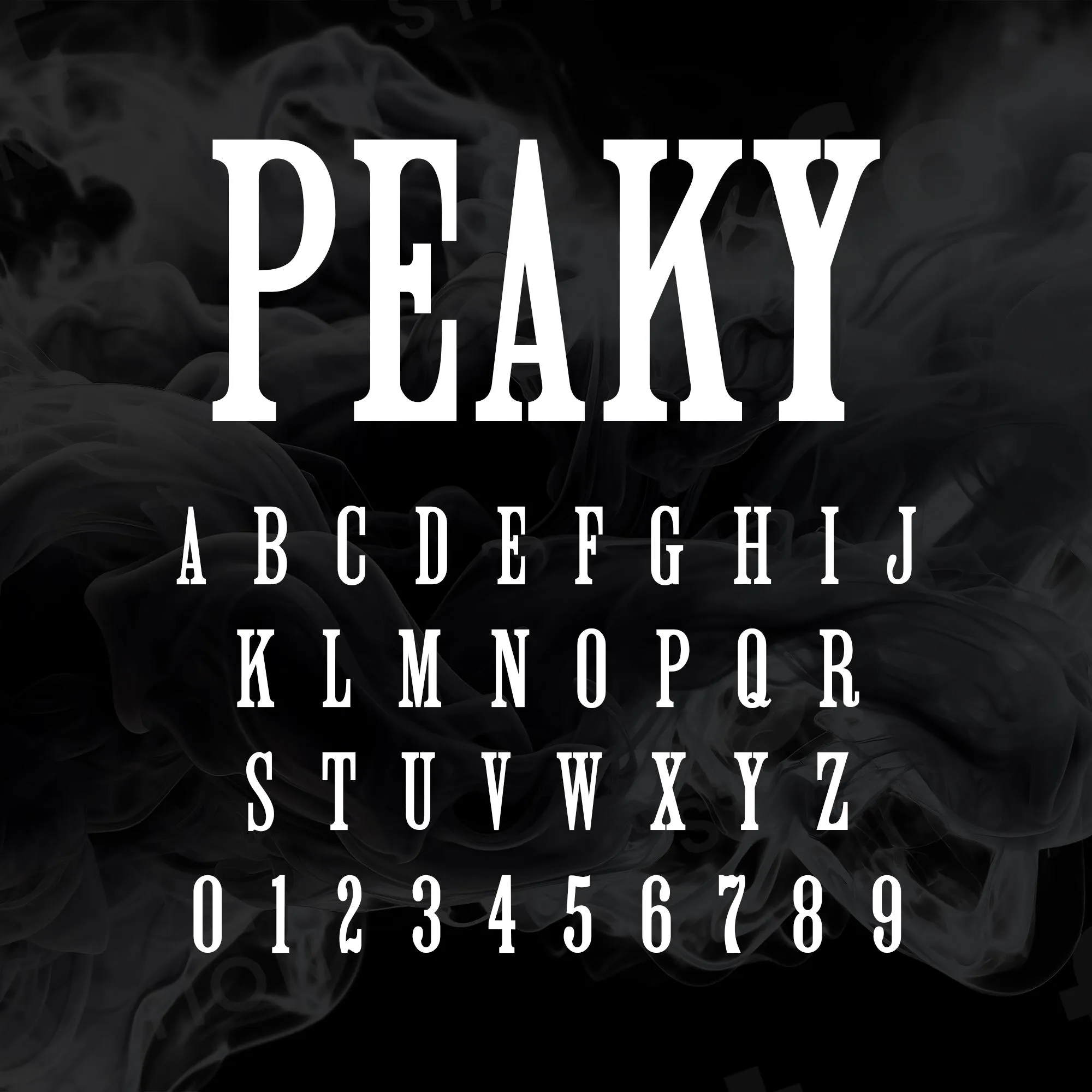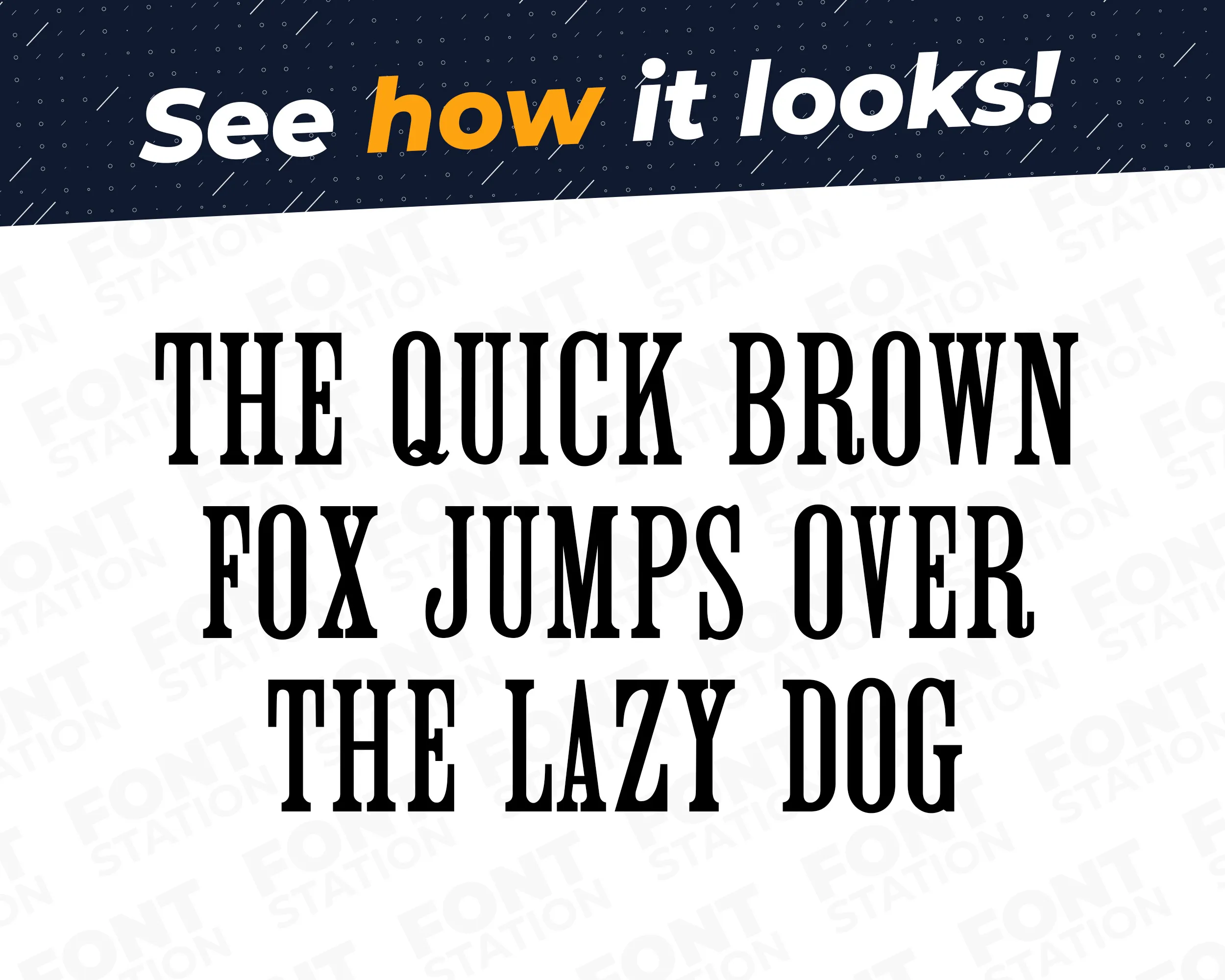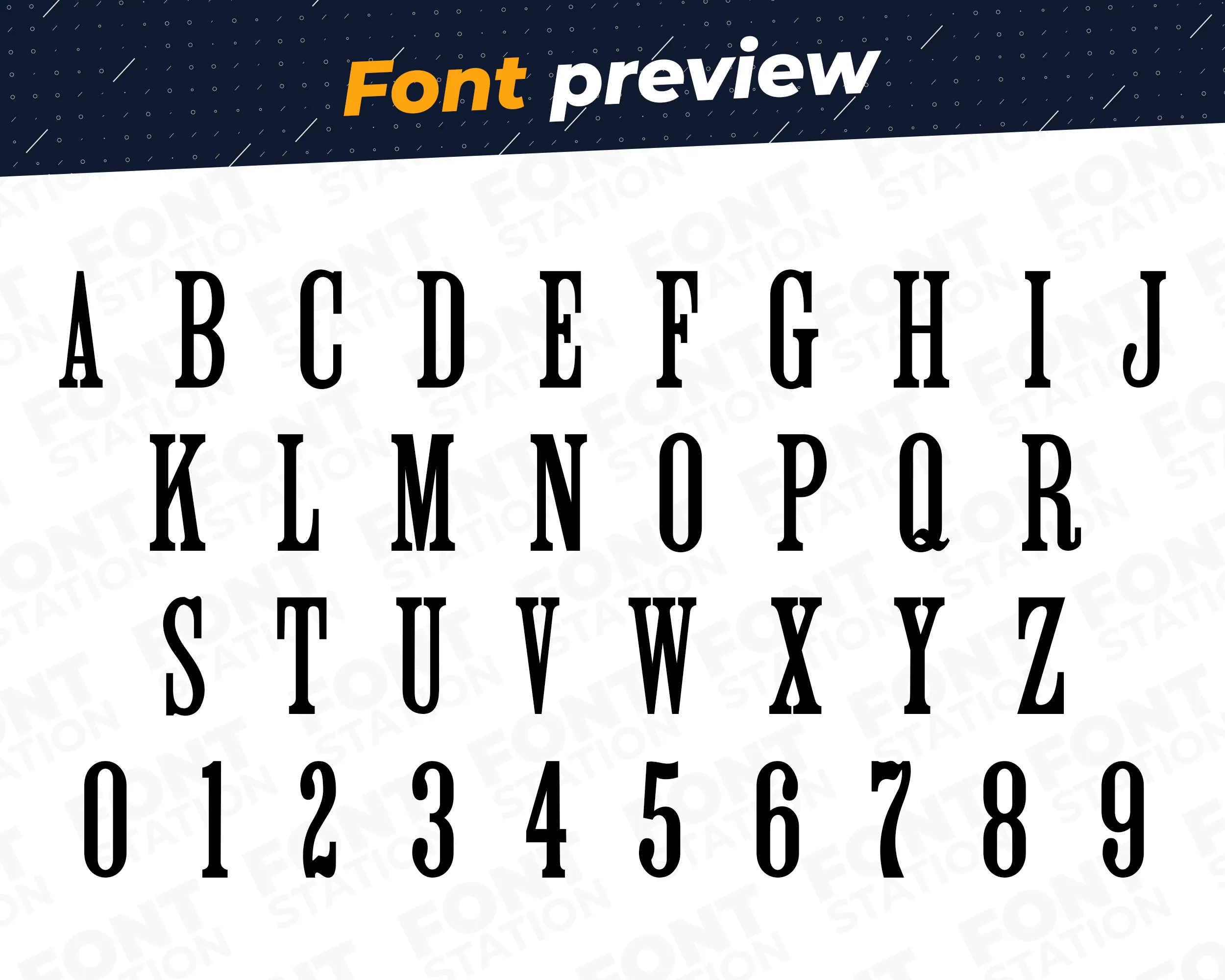
Our Shelby Gang typeface, inspired from Peaky Blinders font
Grab your computer, tablet or other device and start creating right now with our Peaky Blinders font letters! Our Shelby Gang typography is inspired from Peaky Blinders TV series font, making it ideal for various digital creations (logo, word…), sublimation, cake toppers, stickers, event decorations, and more.
Peaky Blinders Font